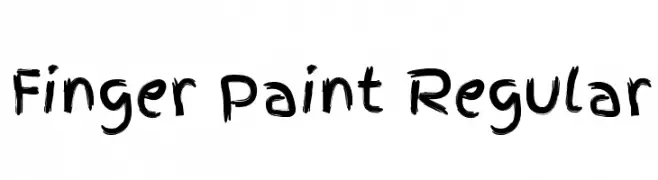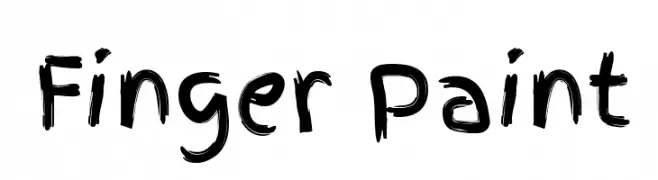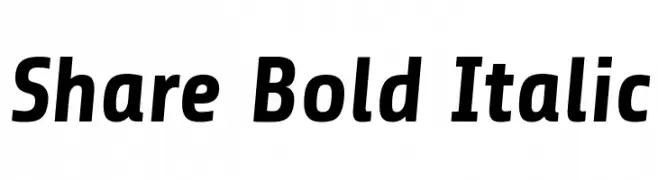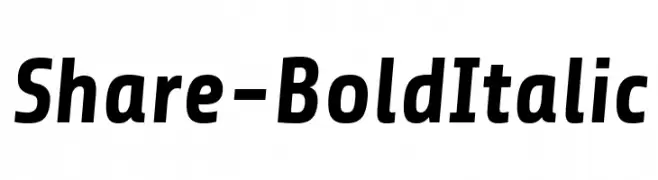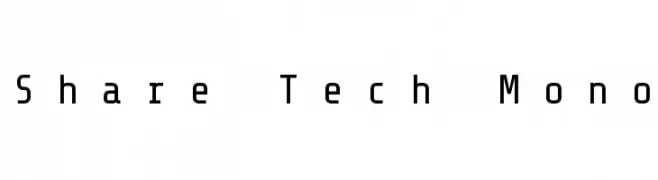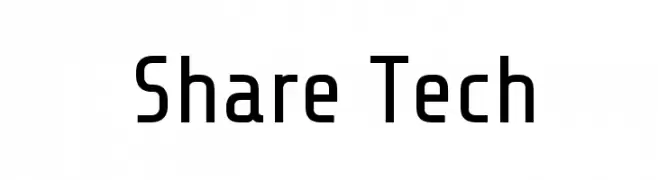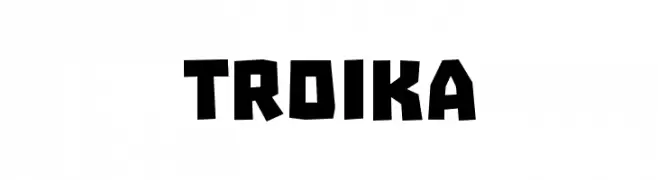
A bold, italic font with a modern and assertive style.
A bold, italicized font with strong strokes and a modern, dynamic style.
A bold, hand-drawn font with an edgy, irregular style.
A modern, geometric sans-serif font with clean lines and uniform width.
A modern, monospaced font with a technical and futuristic style.
A bold, dynamic brush script font with expressive strokes.
A playful, brush-stroke inspired font with an artistic and dynamic style.